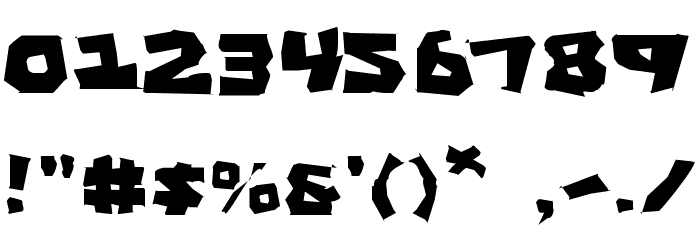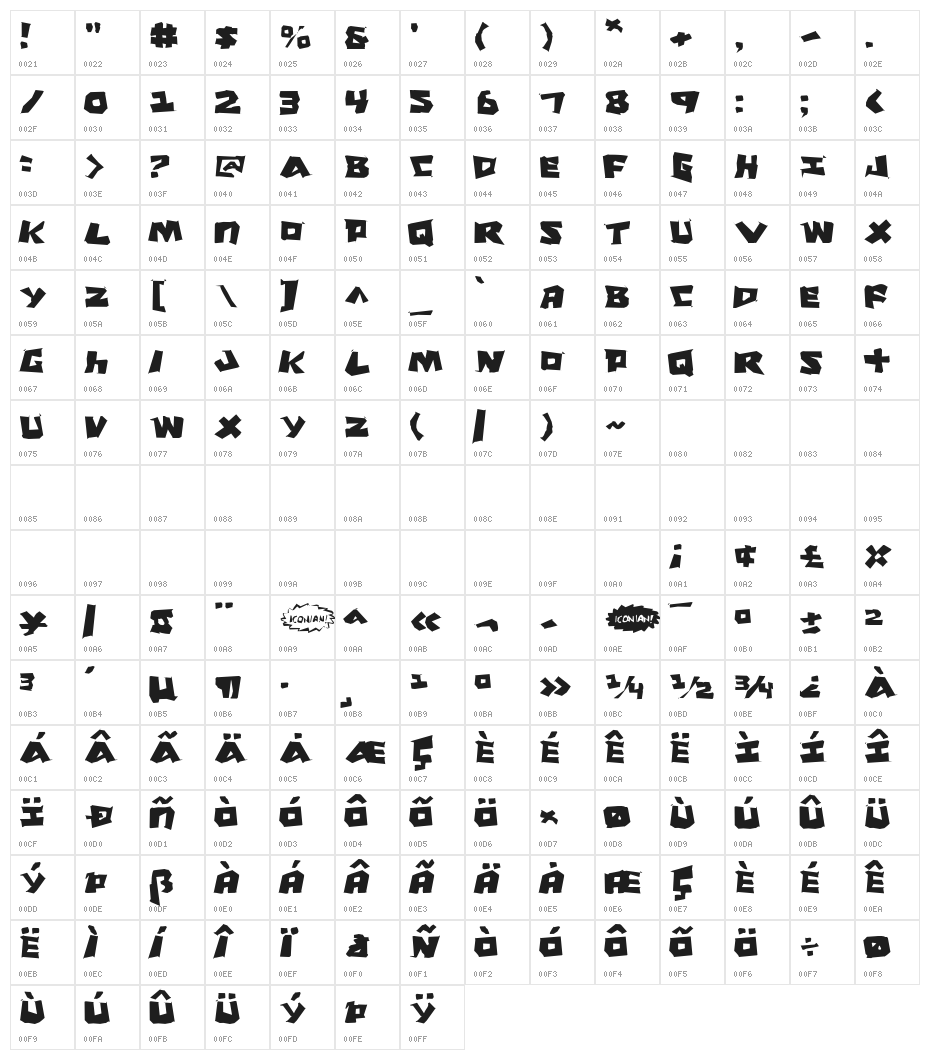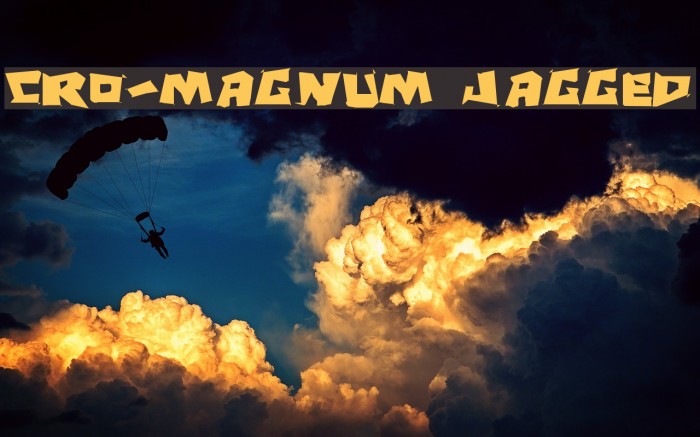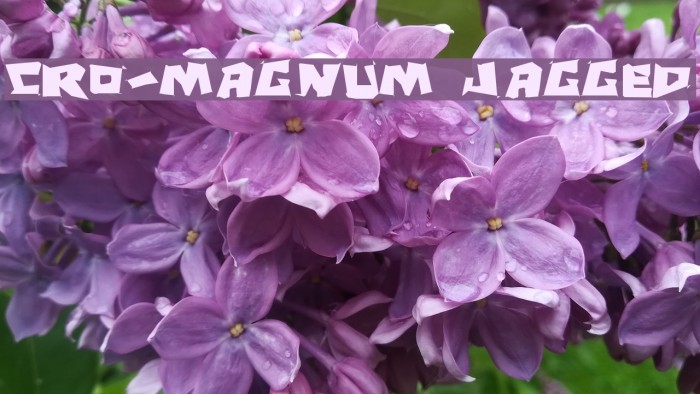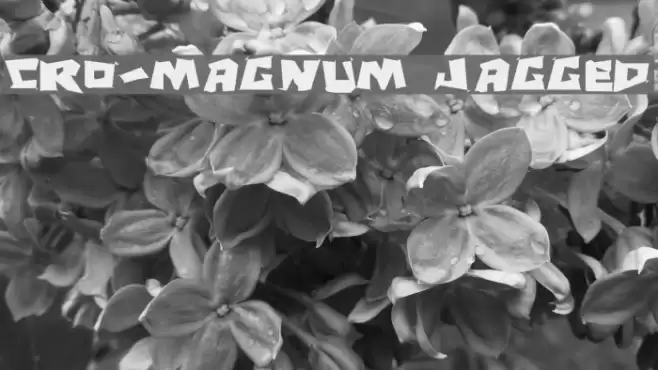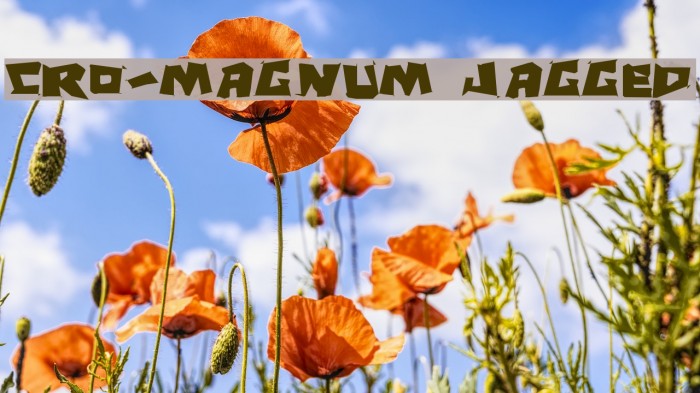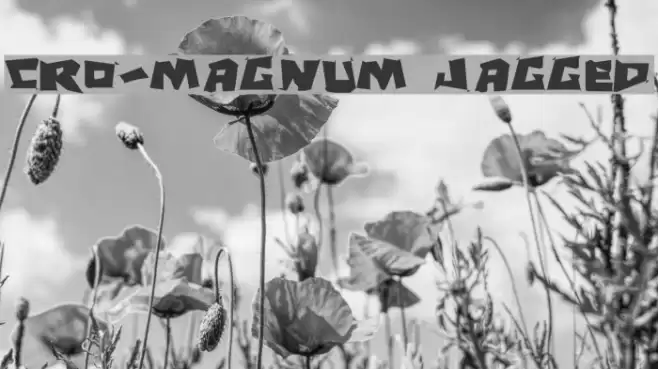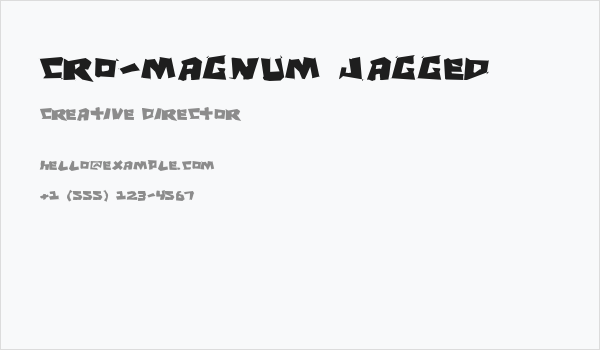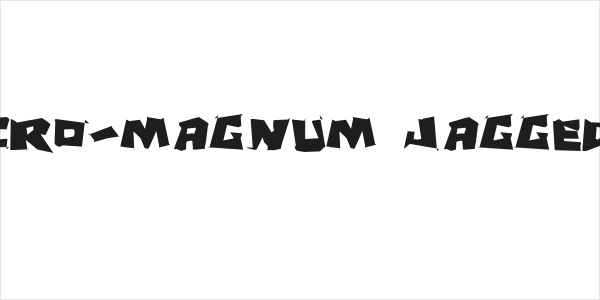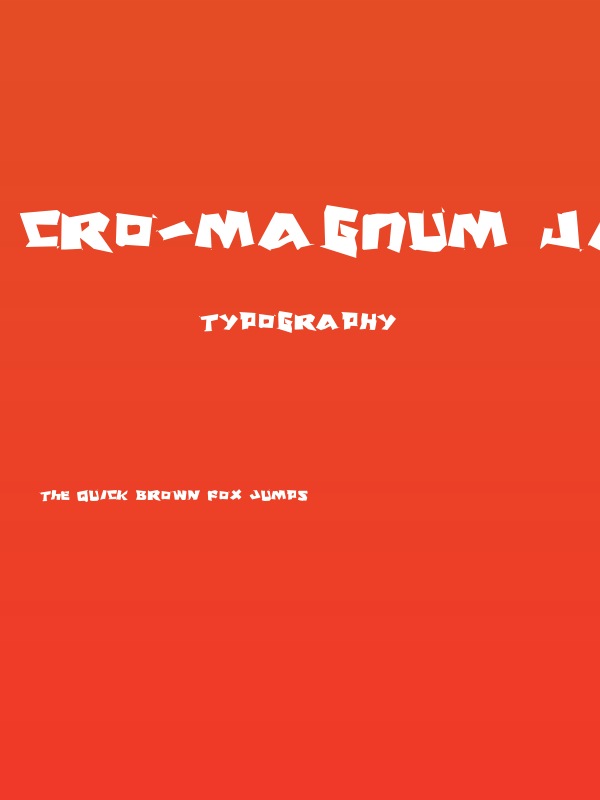
Cro-Magnum Jagged Font
Cro-Magnum Jagged Description
This font features a bold and jagged style, reminiscent of rough, hand-chiseled stone. The characters are angular and dynamic, with sharp edges and irregular shapes that give it a rugged, primal appearance. The uppercase and lowercase letters maintain a consistent height, while the numbers and special characters follow the same jagged aesthetic. This font's unique style makes it stand out, ideal for projects that require a strong, impactful visual presence.
| Proposed Projects | Ideal for posters, album covers, video game graphics, and any project needing a bold, edgy look. |